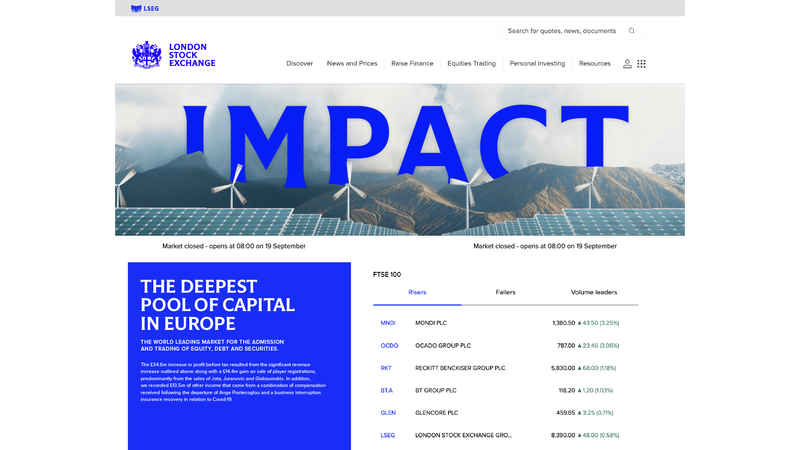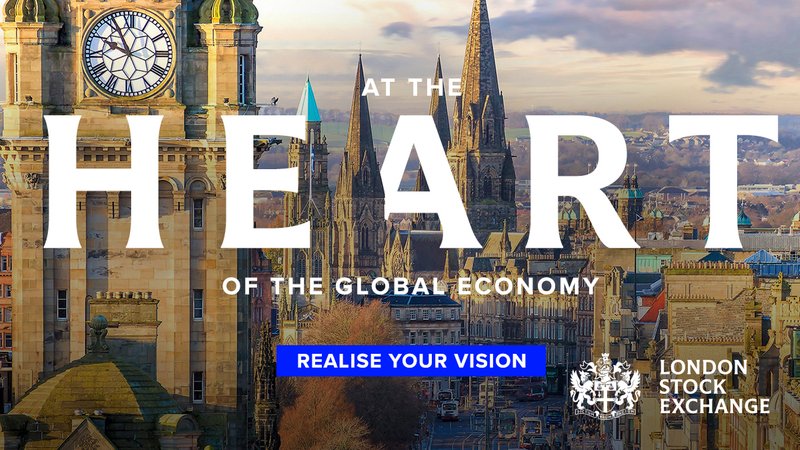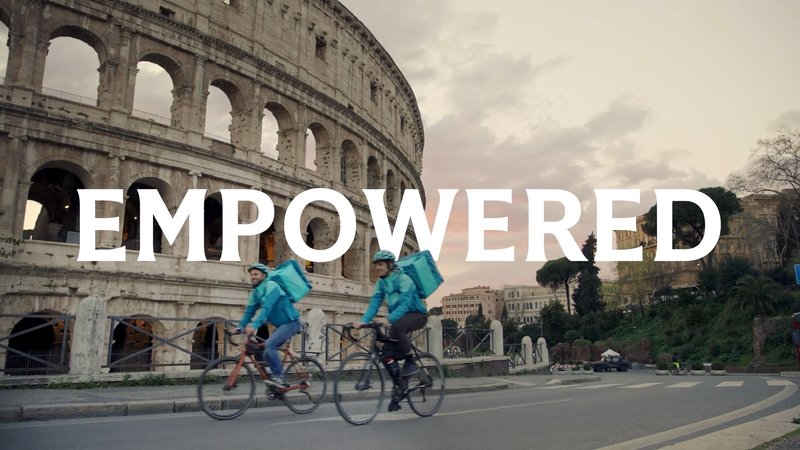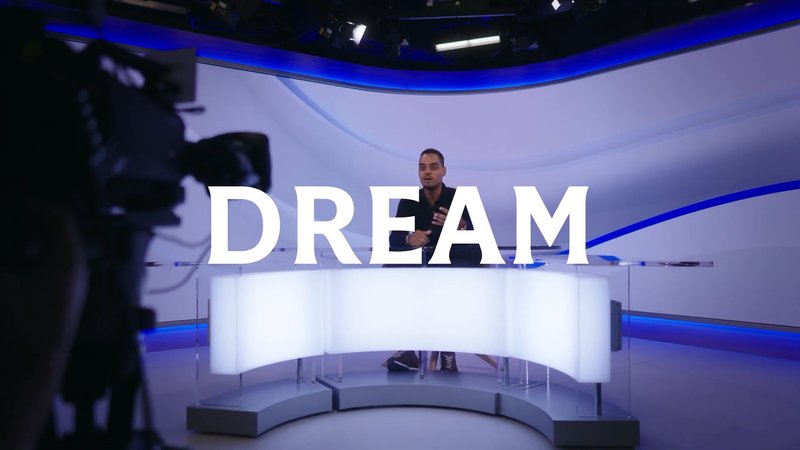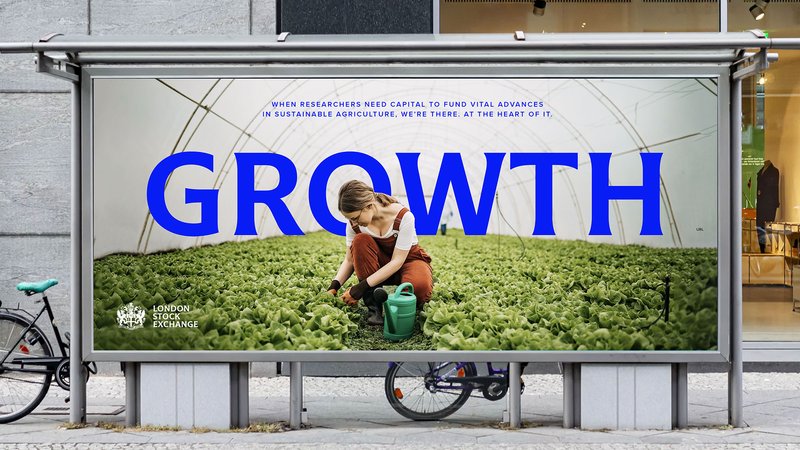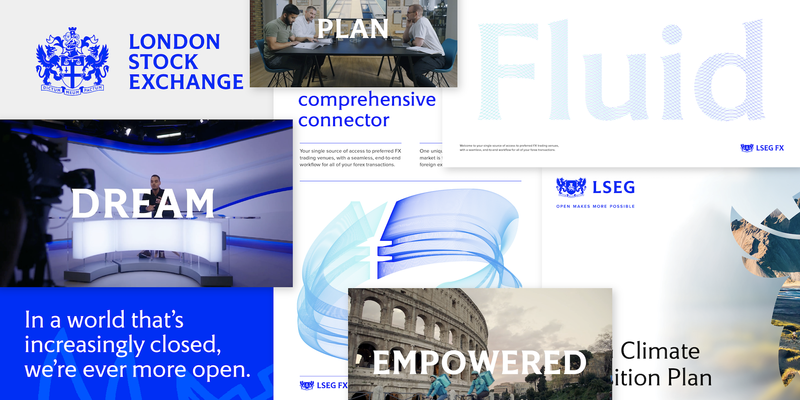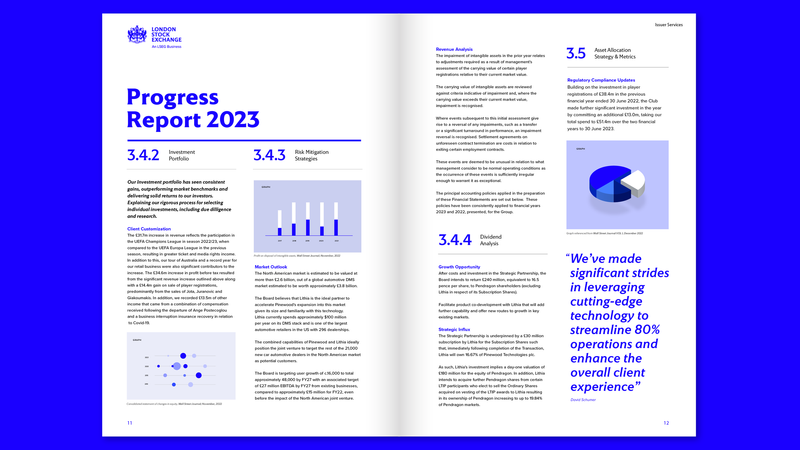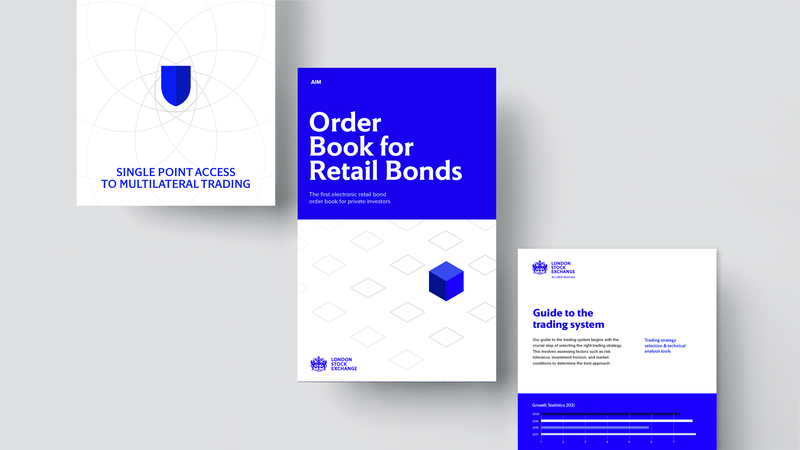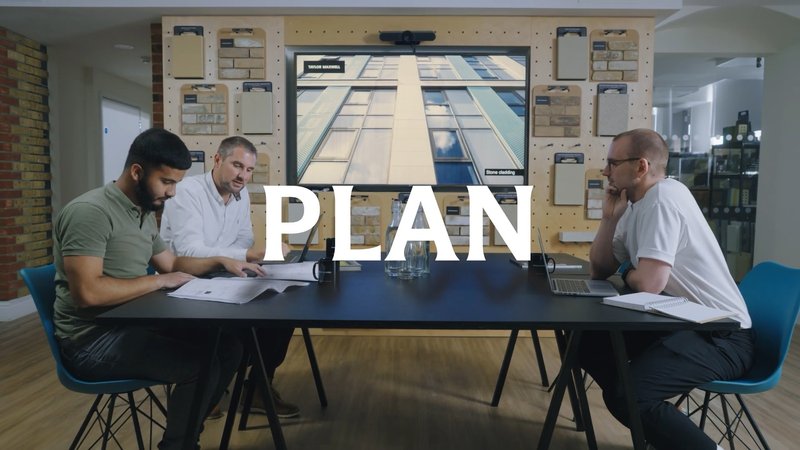
Custom typeface for London Stock Exchange Group
Specimen of LSEG Motto
Sample uses of LSEG Motto from the identity system for LSE. Images: Interbrand
Just four letterforms—an L, S, E, and G designed for London Stock Exchange Group’s new identity—were the starting point for LSEG Motto, a custom typeface that highlights LSEG’s prominent position in the financial sector, visually unifying its growing portfolio of divisions, subsidiaries, and products, including London Stock Exchange itself.
Our frequent collaborator Interbrand asked us to help imagine lettering possibilities for LSEG’s new identity design. The brief was to emphasize the company’s history, its legacy of trust, and its vision for the digital future of finance.
LSEG Motto’s success was the result of XYZ Type’s attention to detail and care in bringing the idea of ‘modern heraldry’ to life for a global audience, balancing the timelessness of a 300-year-old company with the openness needed to accommodate five innovative sub-brands.
Mike Knaggs, executive creative director, Interbrand
Sample uses of LSEG Motto from the identity systems for LSEG, LSE, LCH, and FX. Images: Interbrand and LSEG
Starting with just four letters
London Stock Exchange’s coat of arms, granted in 1923, is a core element of its visual identity. It includes a Latin motto, “Dictum meum pactum”—“Our word is our bond.” The lettering of the motto, in a hand-rendered version of Berthold Wolpe’s iconic British typeface Albertus, informed the overall tone of the new LSEG logotype, while the unconventional crossbar of the G was a nod to English lettering artist Michael Harvey.
Working closely with Interbrand creative director Mike Knaggs under the direction of LSEG’s brand strategy team, Jesse drew four letterforms in a stately flared sans serif style that would be the typographic signature of the new identity system. This lettering work was so well received by the LSEG team that Interbrand recommended expanding it into a typeface that could be used for all the brands under the LSEG umbrella.
Sample uses of LSEG Motto from the identity systems for LSEG, LSE, LCH, and FX. Images: Interbrand and LSEG
Research, absorb, synthesize
With Chris Skillern’s help, Jesse worked on expanding the logotype into LSEG Motto. In our initial research phase, we immersed ourselves in quintessentially British letterforms, including the ubiquitous blue English heritage plaques, Edward Johnston’s London Underground type, and George Mansell’s lettering for the University of London. With these visual references in hand, we set about designing something entirely original and unique for LSEG.
In the logotype, the L, S, E, and G were given equal presence, with minimal variation in width. This set the tone for the other capitals in the new alphabet: the relatively wide J, for example, and the narrow M, with its high midpoint. For the lowercase, says Jesse, the goal was to “complement the design of the capital letters, match the tone and values of the brand, and expand the aesthetic vocabulary of the identity system.”
LSEG Motto plays off the conventions of serif and sans letterforms; structurally, it’s a geometric sans, but many of its details recall the calligraphic flourishes of traditional serif typefaces. The stem of the t is in a decidedly sans-serif idiom, while an unconventional calligraphic spur takes the place of a crossbar on the left side of the f and t. The inflated, almost buoyant bowls of the a and b are offset by playful moments like the subtle flick of the g’s ear.
In the italic lowercase, these details are even more exaggerated. Meanwhile, smoother transitions in letters like n and p soften the skewed-roman structure, italic exit strokes suggest the movement of a pen, and the v, w, and y feature curled upstrokes. The overall effect is a brisk rhythm of angles and curves, giving the typeface a sense of movement and friendly energy.
Our continuing partnership with XYZ Type always comes back to their high craft, creative vision, and ability to express our clients’ strategic objectives through world-class typography.
Mike Knaggs
Words to live by
With five roman and italic weights, LSEG Motto is a key component of a strong, flexible typographic identity rooted in LSEG’s history, establishing a visual consistency for the company that carries across its sub-brands, underscoring LSEG’s legacy of trust, vision for the future, and dedication to its motto, “Our word is our bond.”
LSEG Motto includes five weights in roman and italic.